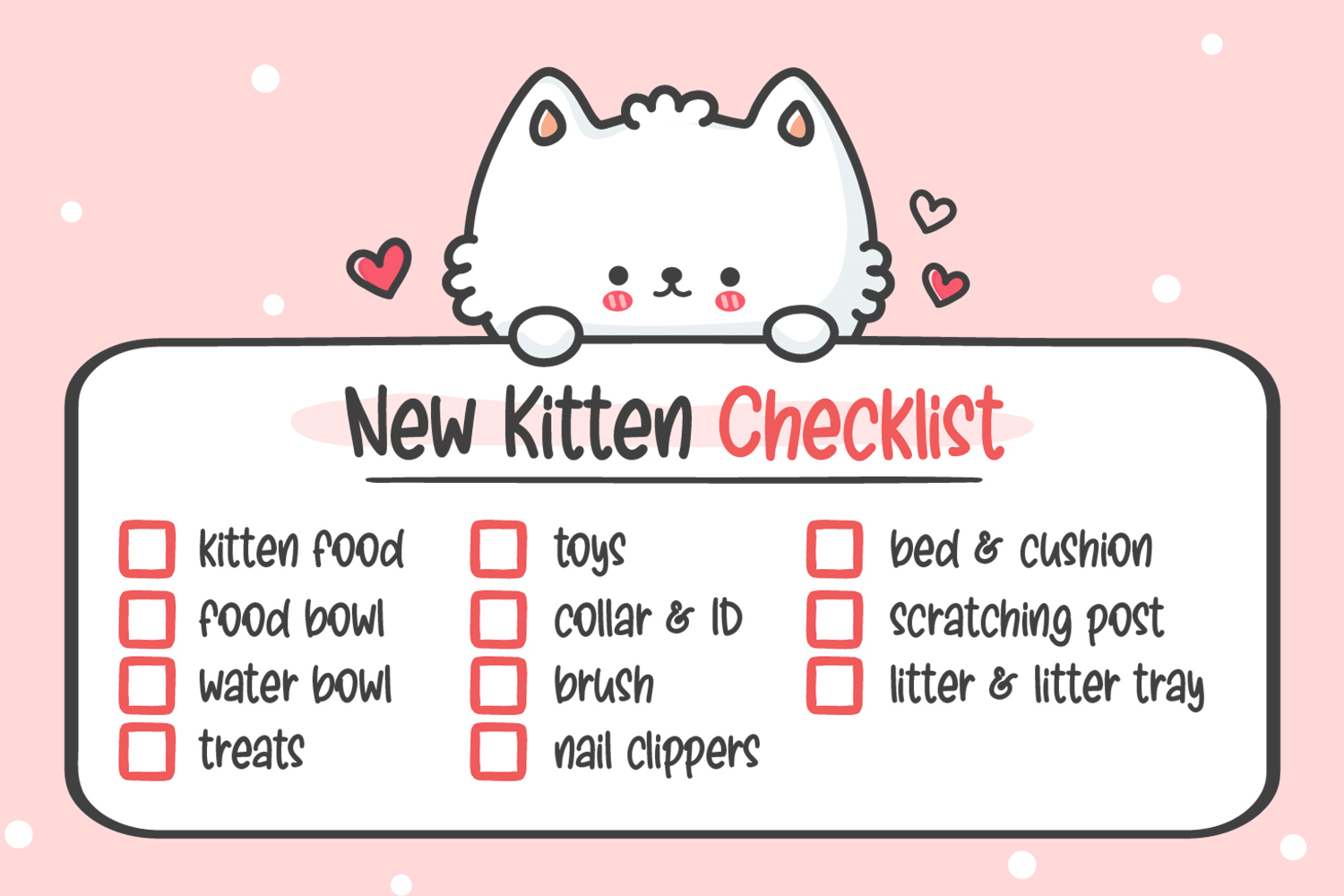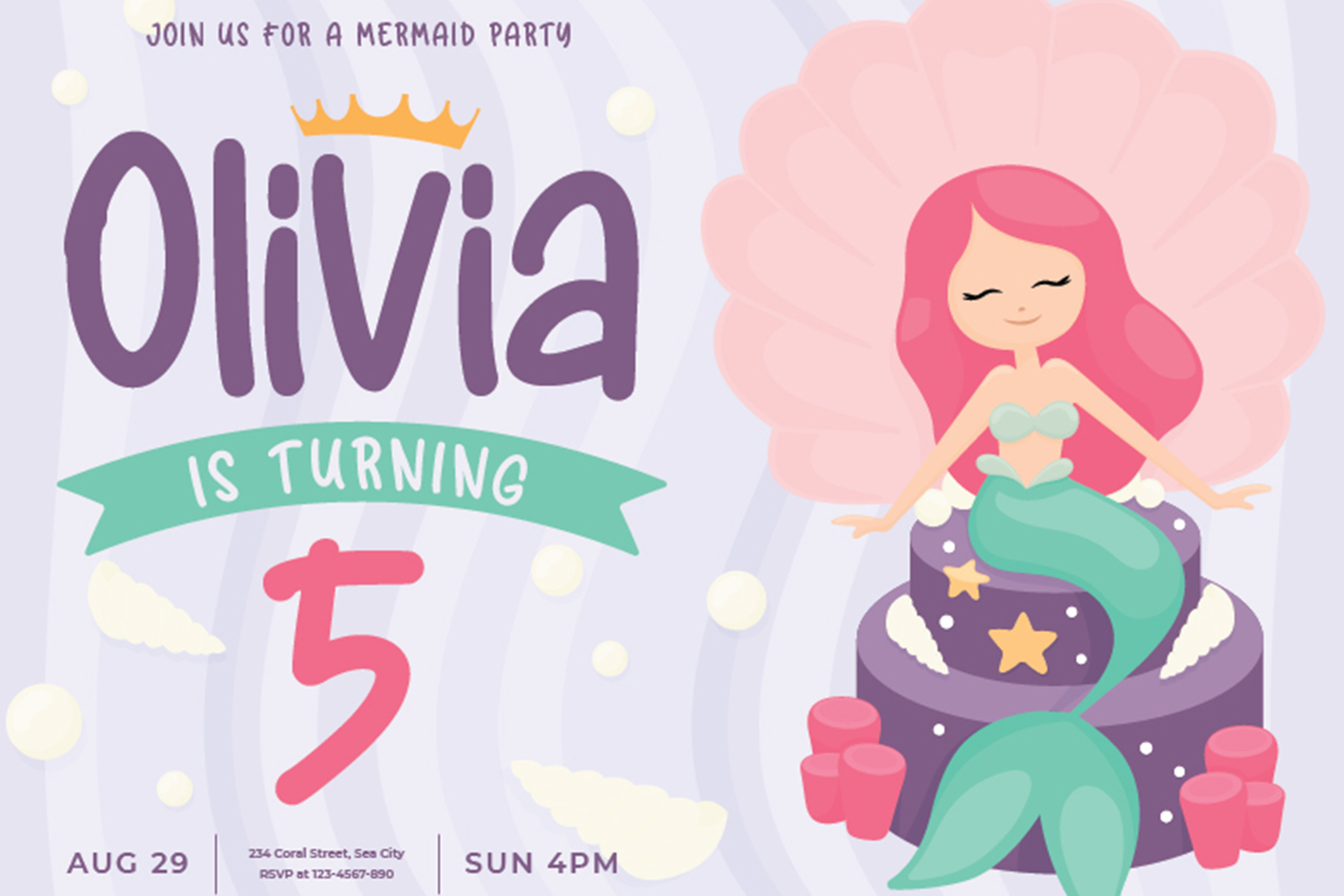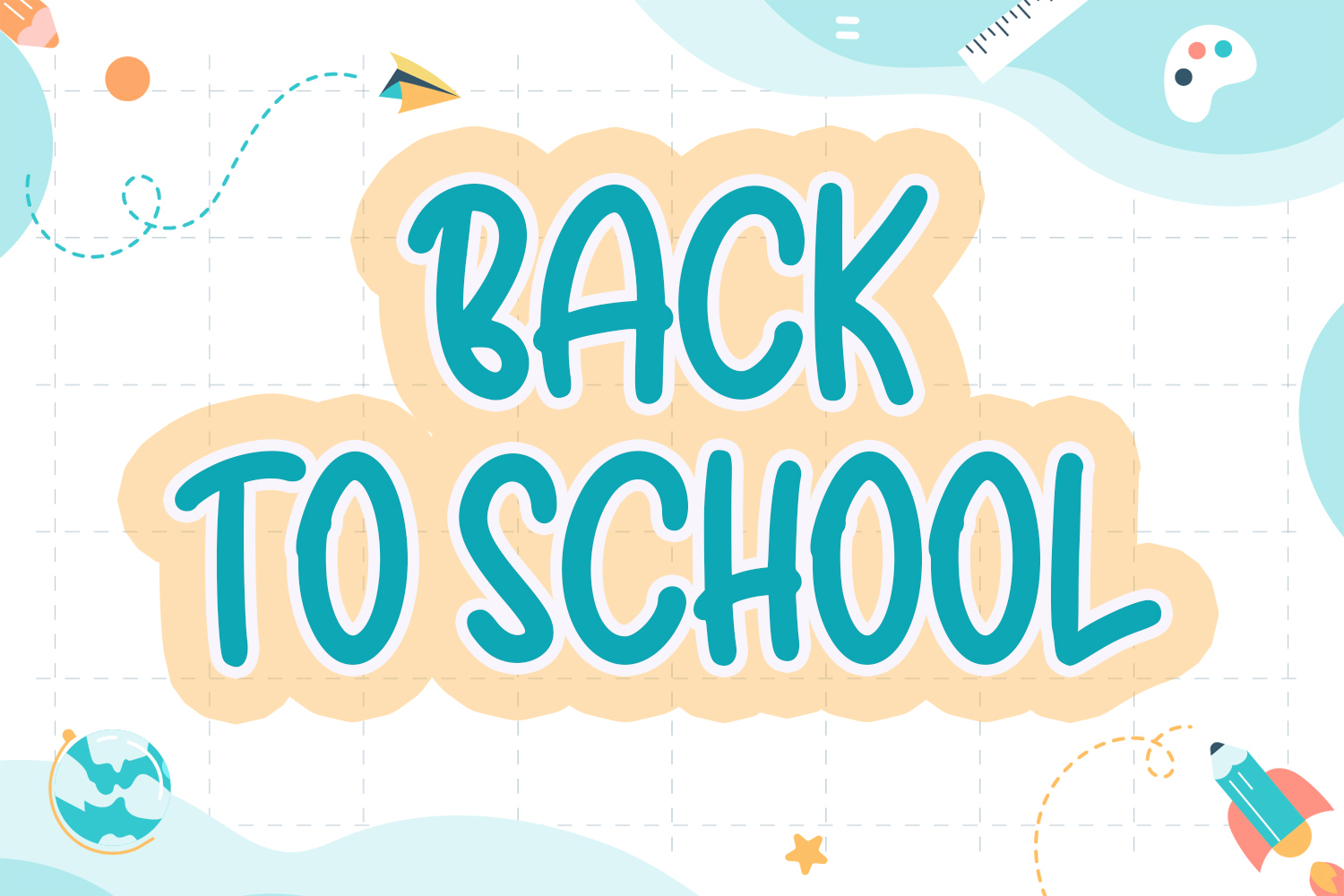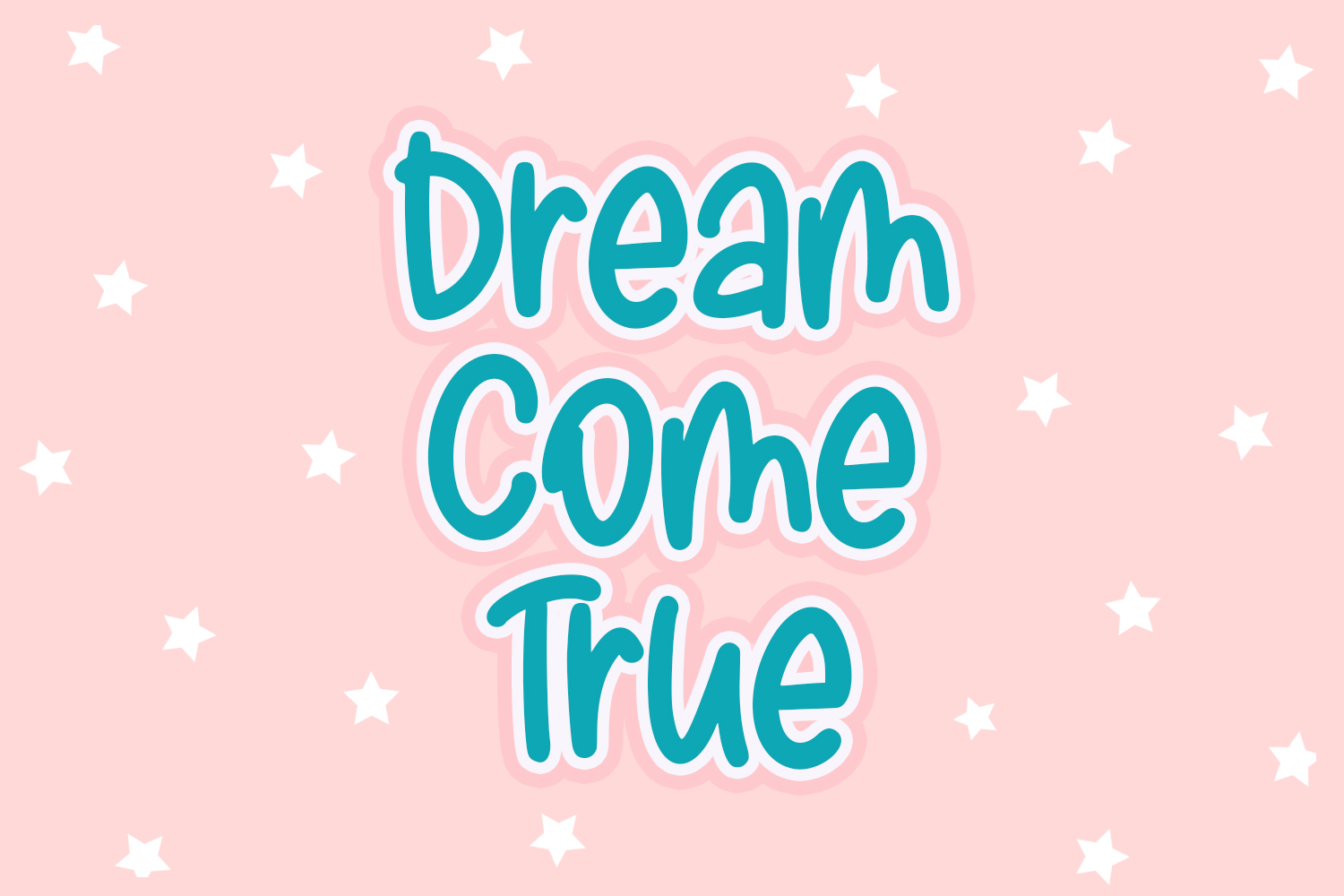
Baby Mermaid Font
Baby Mermaid Display Font
This is a stunning fun display font with cute and casual feels. It will be perfectly used for Branding, Logo Design, Lettering, Logotype, Clothing, Poster, magazine, packaging, posters, shopping bags, t-shirts, book covers, photography, special events and other design project.